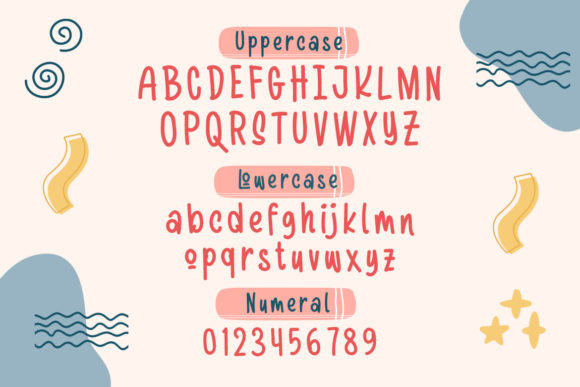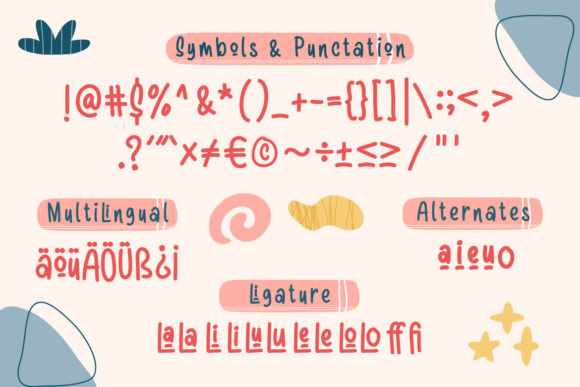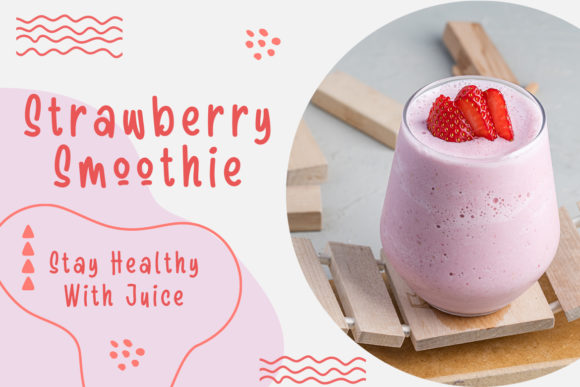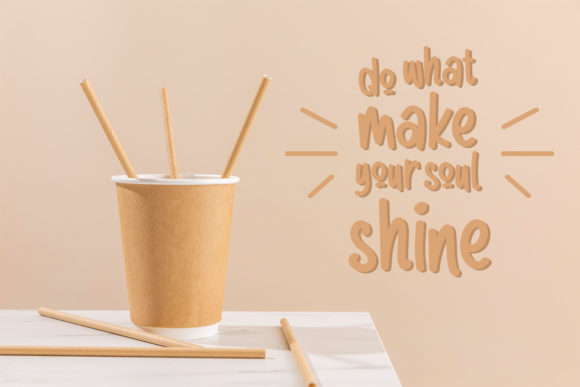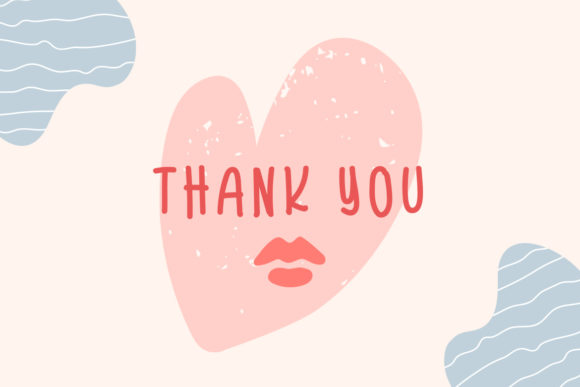
Introduction to Kulo Font
Have you ever stumbled upon the perfect font that captures the essence of a creative project? For many designers, that moment is a game-changer. It’s like finding a hidden treasure that elevates the entire design and brings it to life. This is exactly what the Kulo Font does – it’s a playful and cute display font that embodies joy and authenticity, making it the perfect choice for any children’s activity or school project.
As a valuable design resource, the Kulo Font offers a high-quality solution for designers who need a font that’s both fun and professional. Its transparent background and clean design make it a versatile choice for various creative projects, from educational materials to children’s book covers. And the best part? It’s available for free download, making it an accessible resource for designers of all levels.
Key Features of Kulo Font
- High-quality design resource with a unique, modern style, perfect for creative projects.
- Features a transparent background, making it easy to integrate into designs with complex backgrounds.
- Designed with a clean and minimalist aesthetic, ideal for use in a wide range of design applications.
- Supports multiple languages, including English, Spanish, French, and more, making it a versatile design resource.
- Can be easily scaled and customized to fit the needs of your specific design project.
Honest Review: Kulo Font
I recently had the chance to work with the Kulo Font in one of my creative projects, and I must say, it was a delightful experience. This font is a great addition to any designer’s toolbox, offering a unique and modern aesthetic that’s perfect for a variety of design applications.
One of the standout features of the Kulo Font is its versatility. It’s a great choice for designs that require a lot of text, as it’s highly legible and easy to read. Additionally, the font’s transparent background makes it easy to combine with other design elements and create a seamless look.
- High-quality design with a modern aesthetic
- Highly legible and easy to read
- Transparent background for easy integration with other design elements
- The font may not be suitable for very formal or traditional designs
- Some users may find the font’s unique style to be too busy or overwhelming
Overall, I’m impressed with the Kulo Font and would highly recommend it to designers looking for a unique and modern design resource. With its high-quality design, transparent background, and free download, it’s a great choice for any creative project.
Common Use Cases for Kulo Font
Kulo Font is ideal for use in logos, branding materials, social media graphics, and any other design project where a unique and eye-catching font is needed.